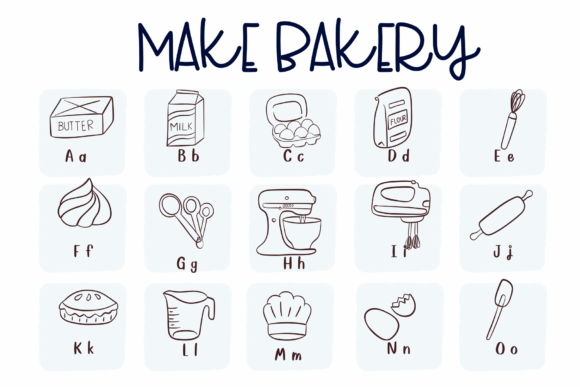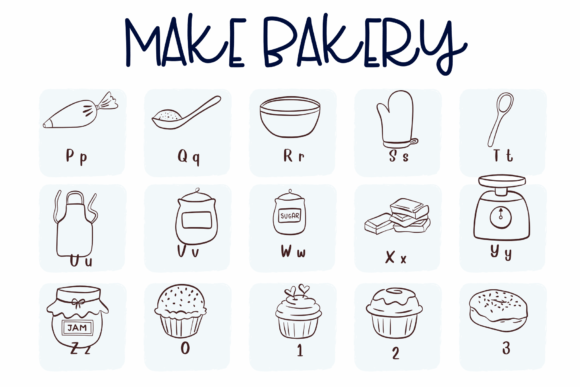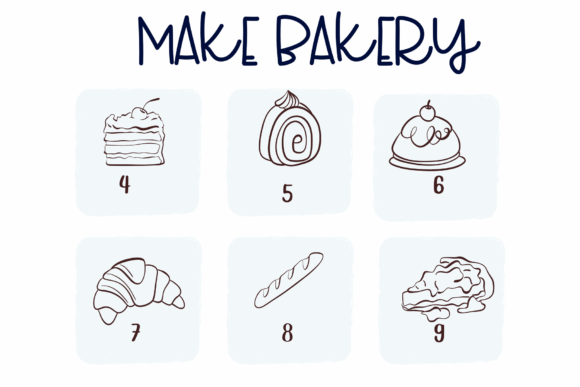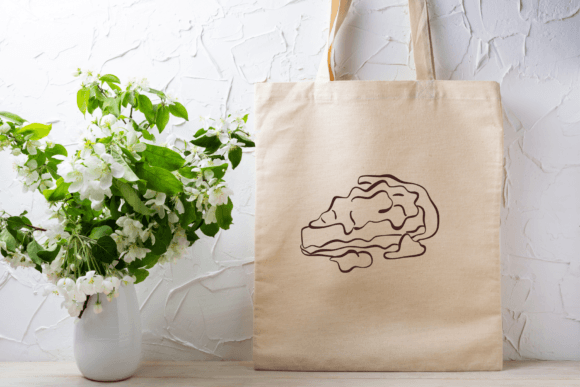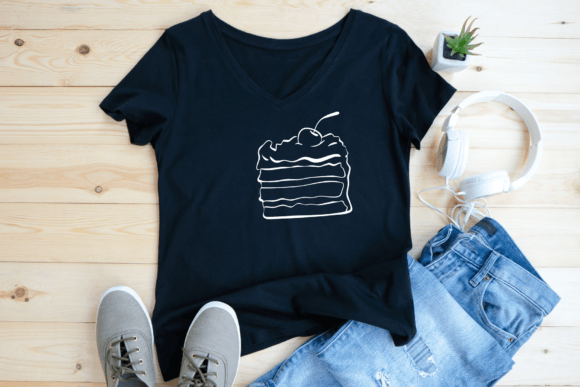
Introduction to Make Bakery Font
As you’re planning a whimsical wedding invitation or a DIY craft project, the perfect design element can make all the difference. You’re scrolling through design resources, searching for that special something to elevate your creative project. Suddenly, you stumble upon the Make Bakery Font – a delightful dingbat font with a bakery theme in a sketch style that instantly catches your eye.
This charming font is more than just a pretty face; it’s a valuable resource for designers and crafty enthusiasts alike. With its transparent background and high-quality design, the Make Bakery Font is perfect for a wide range of creative projects, from logos and decorations to wedding invitations and DIY crafts.
Key Features of Make Bakery Font
- High-Quality Typography: This font features high-quality typography, perfect for baking-related businesses or any creative project that requires a unique touch.
- Transparent Background: The font has a transparent background, allowing for easy customization and integration into various design elements.
- Resolution-Independent: The font’s vector design makes it resolution-independent, ensuring it looks great on any device or screen size.
- Perfect for Baking-Related Businesses: Make Bakery Font is specifically designed for baking-related businesses, making it an ideal choice for bakeries, cafes, and other food establishments.
Honest Review: Make Bakery Font
I recently had the chance to work with the Make Bakery Font, and I have to say it’s been a real treat. The font is designed specifically for baking-related projects, but its versatility makes it perfect for any creative project where a touch of whimsy is needed.
Here’s what I love about the Make Bakery Font: ✨ It’s available as a free download, making it a fantastic resource for designers on a budget. ✨ The transparent background allows for seamless integration with images and other design elements. ✨ The font is available in various weights and styles, giving me endless options for creative expression.
- Beautiful, hand-drawn illustrations
- Customizable for different design projects
- Perfect for baking-related businesses or events
Of course, like any design resource, the Make Bakery Font has its limitations: ⚠️ It’s only suitable for specific types of projects, which may limit its overall use. ⚠️ Some users may find the illustrations a bit too playful, which may not be suitable for all designs.
Overall, I’m thoroughly impressed with the Make Bakery Font. Its high quality and versatility make it a valuable addition to any designer’s toolkit. If you’re working on a creative project and need a font that adds a touch of personality, I highly recommend giving the Make Bakery Font a try.
Make Bakery Font
Make Bakery Font is a high-quality design resource ideal for creative projects. This free download offers a unique and charming aesthetic that’s perfect for bakeries, food blogs, or any business related to the culinary industry.
Tips for getting the most out of Make Bakery Font include:
- Using a transparent background to create a cohesive look.
- Combining with other design elements to create a unique aesthetic.
Common use cases for Make Bakery Font include:
- Bakery logos and branding.
- Food blog headers and titles.
- Menu boards and signage.